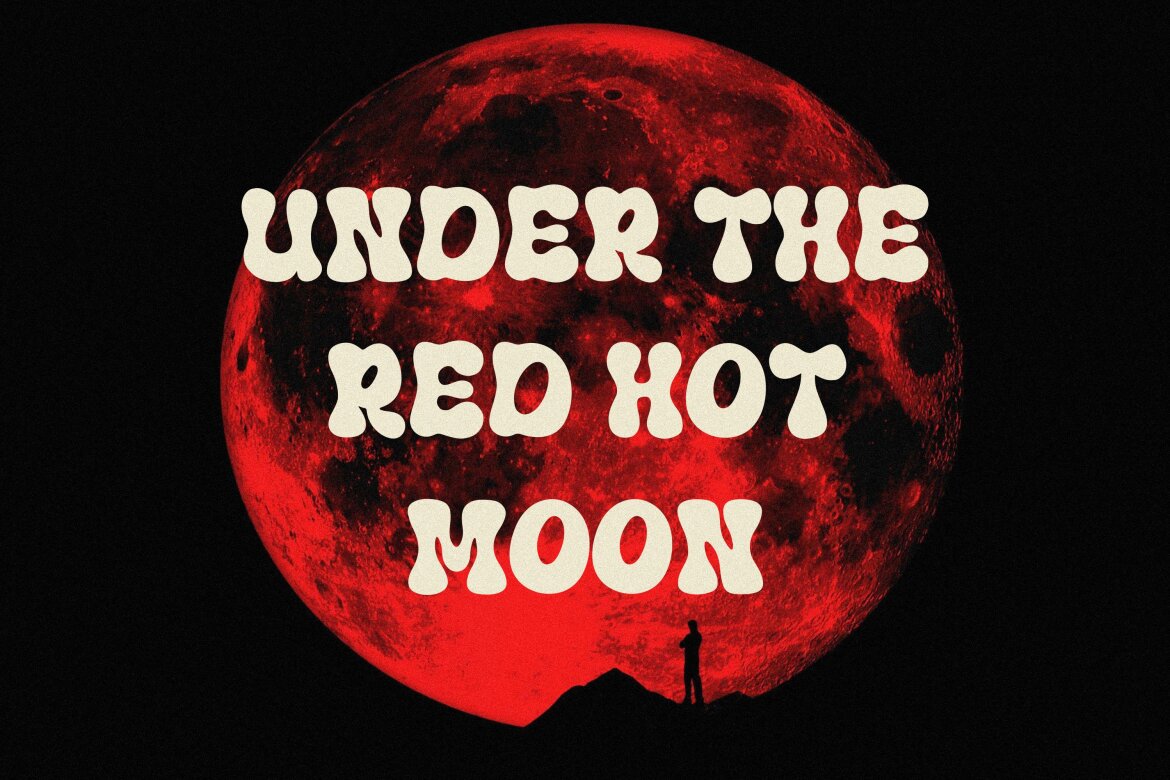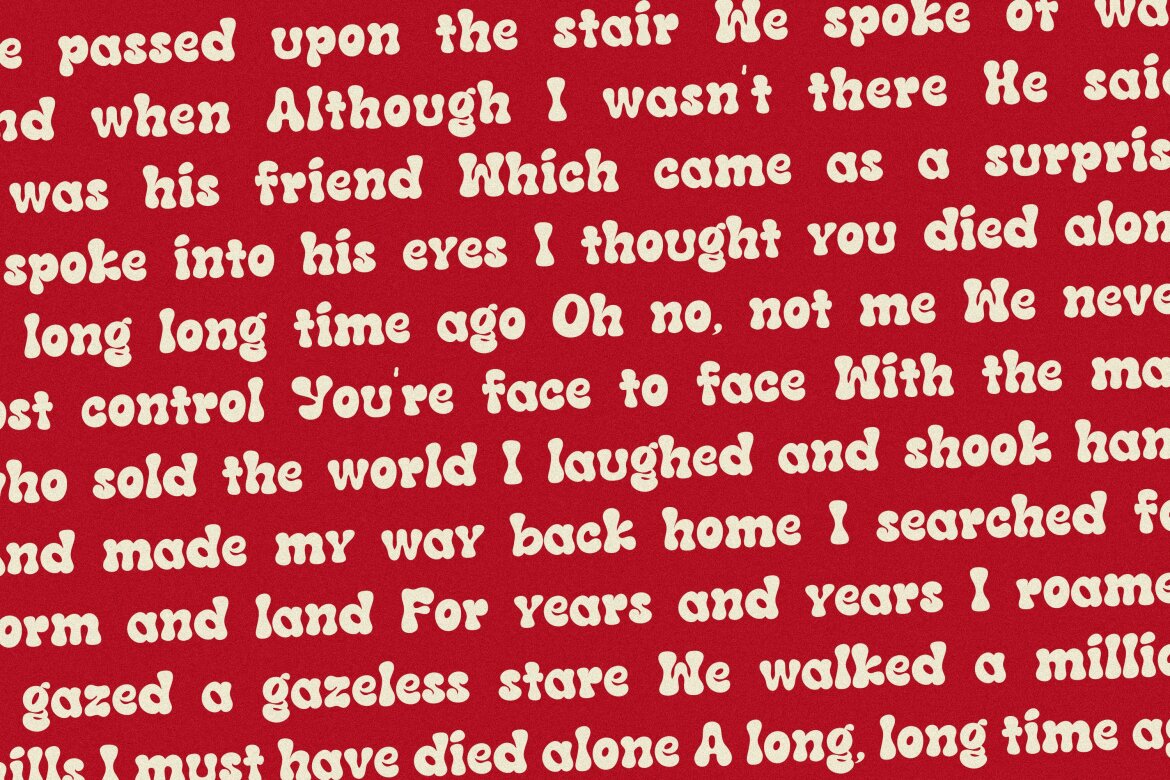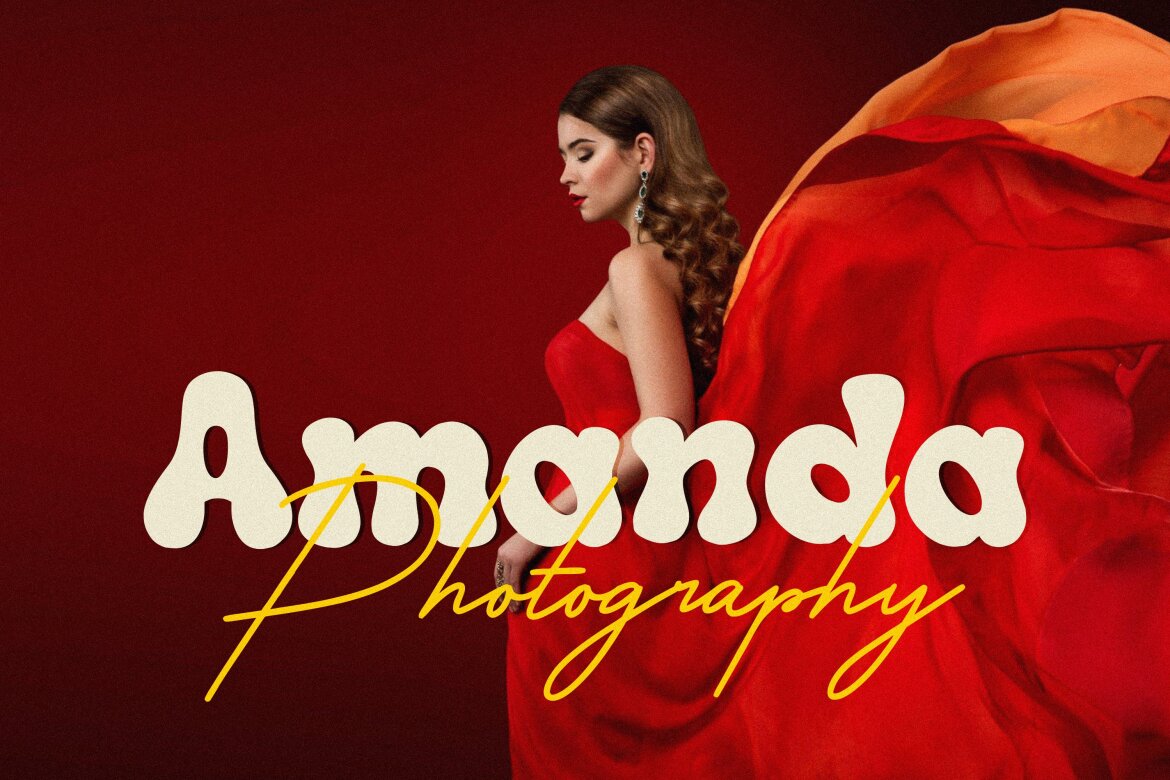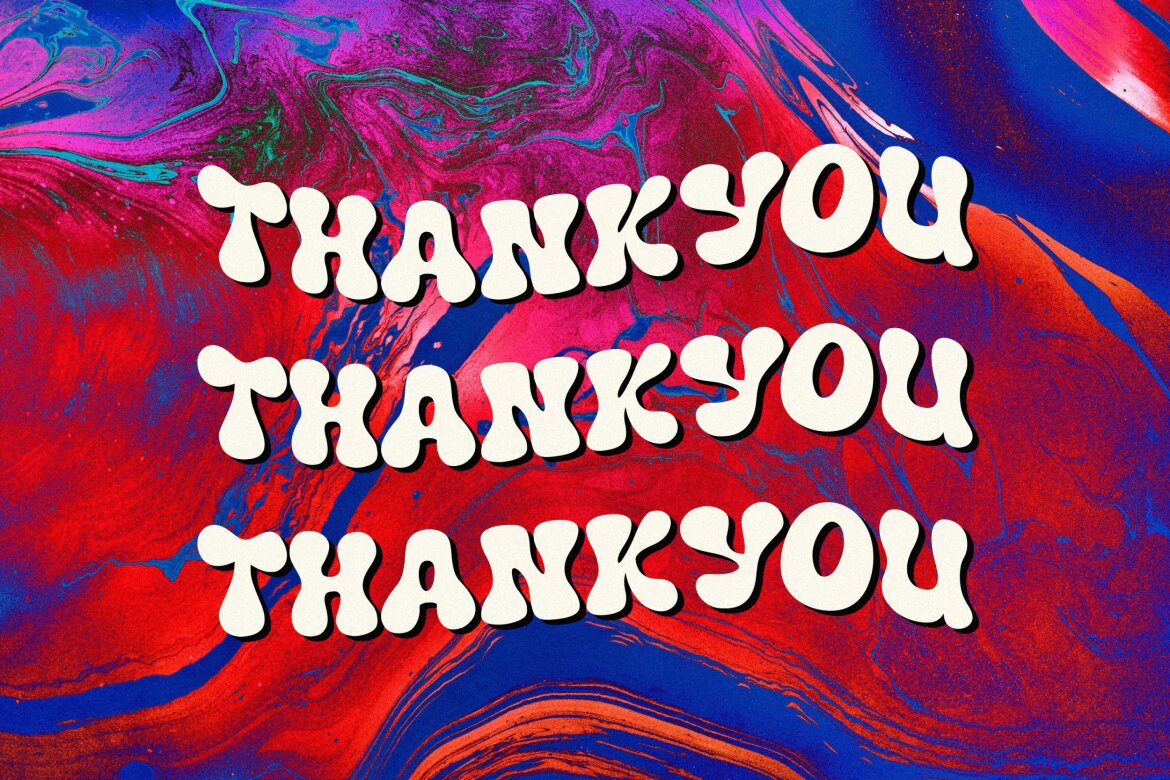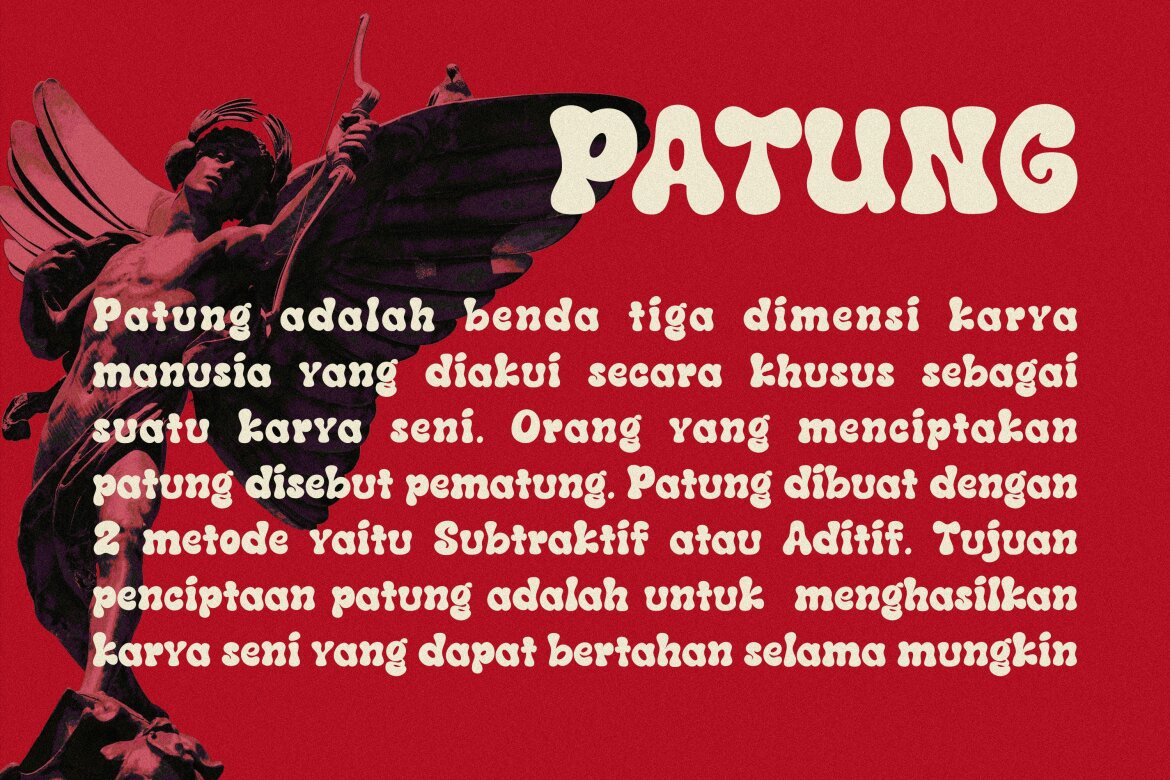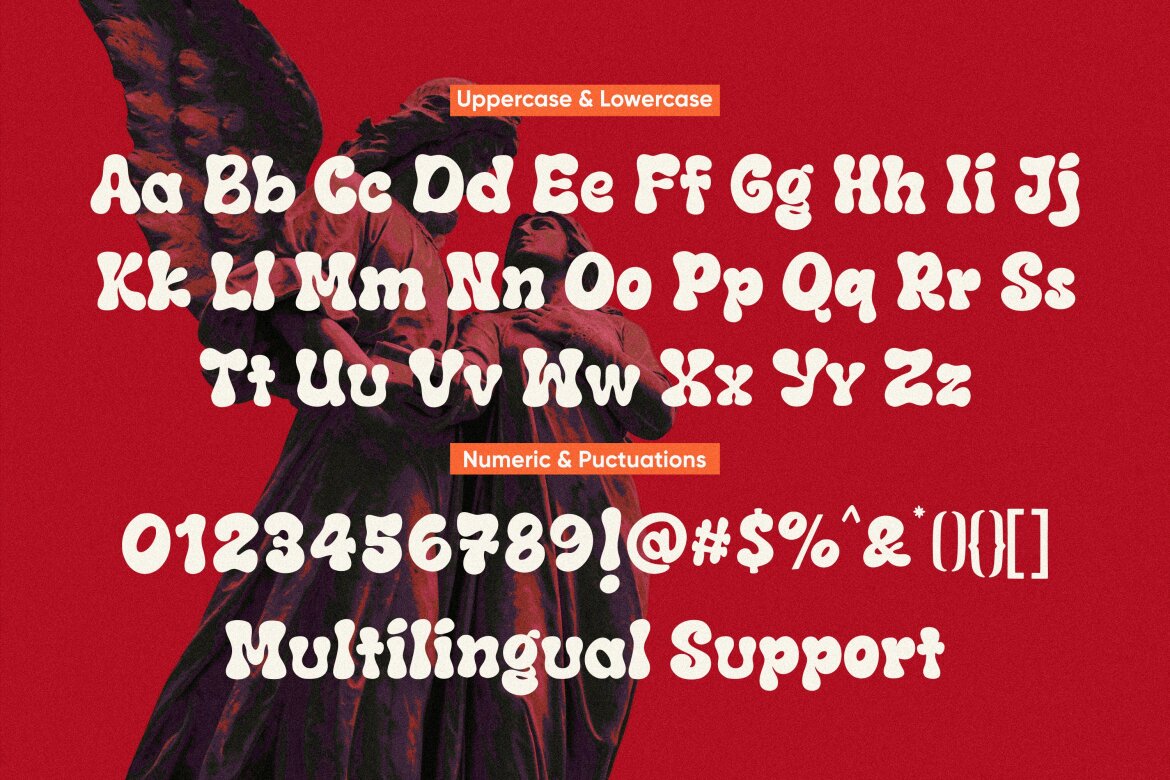
MONSTRA GUTHEN Free Demo Font
MONSTRA GUTHEN
Monstra Guthen Is a modern groovy display font. Monstra Guthen is perfect for product packaging, branding project, magazine, social media, weddings, or just used to express words above the background.